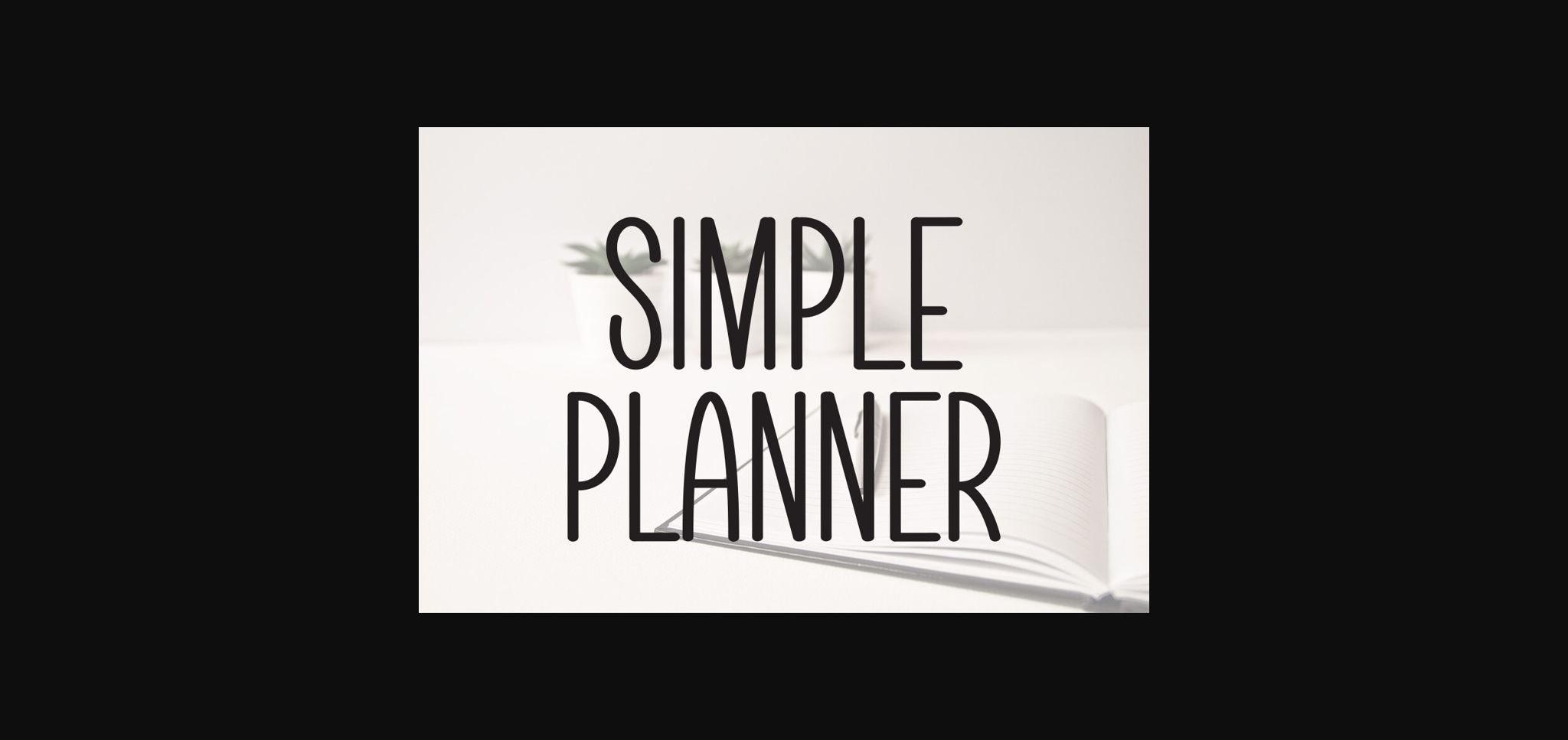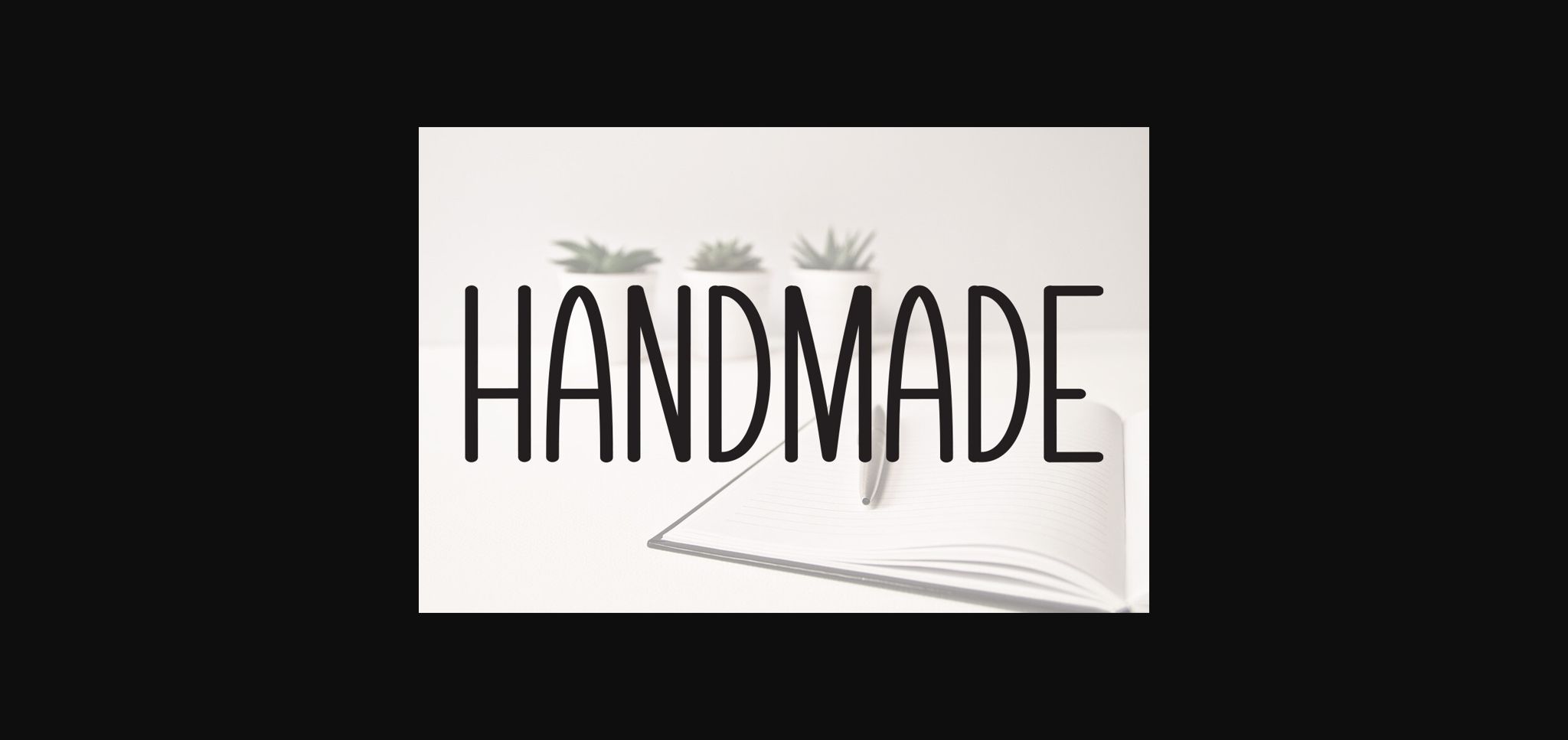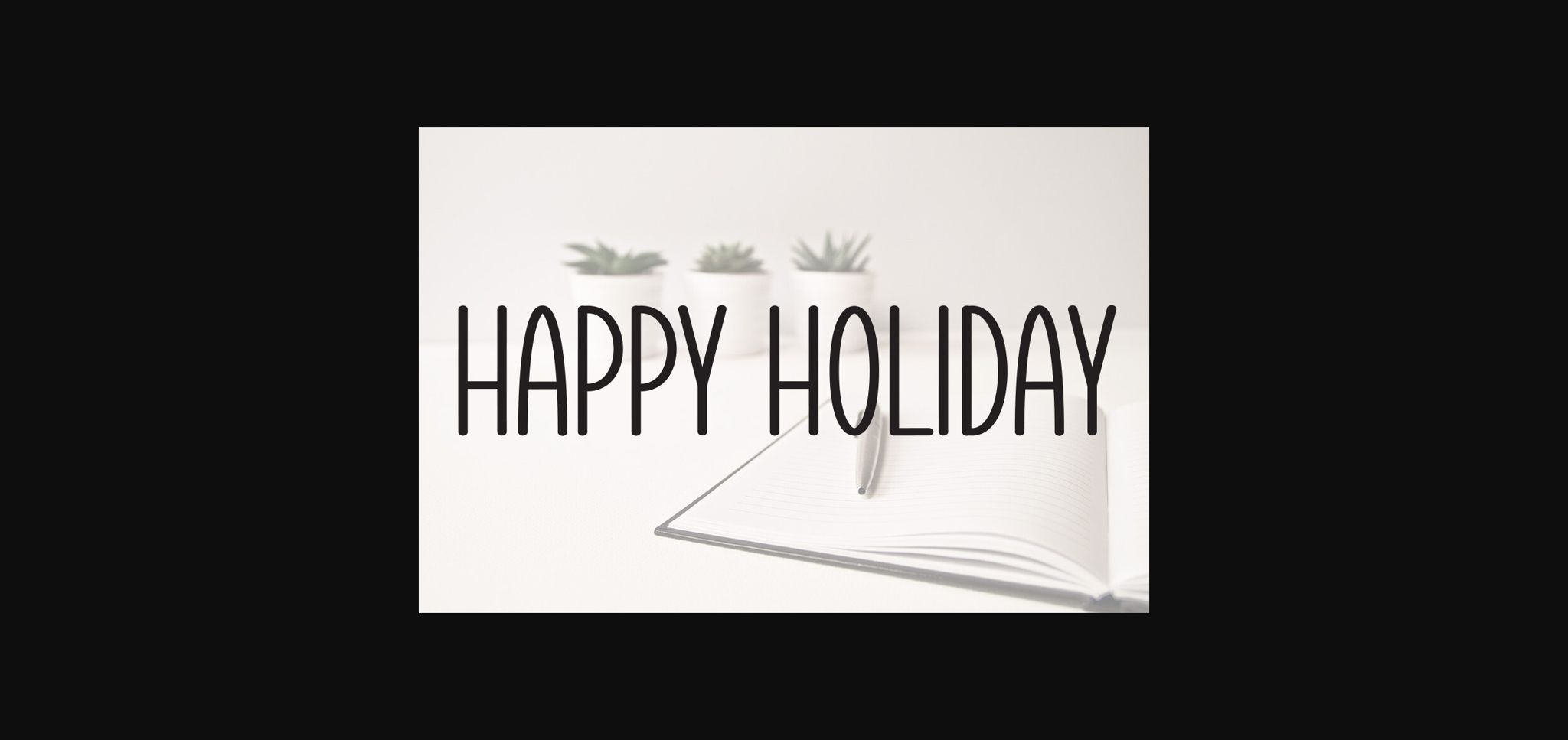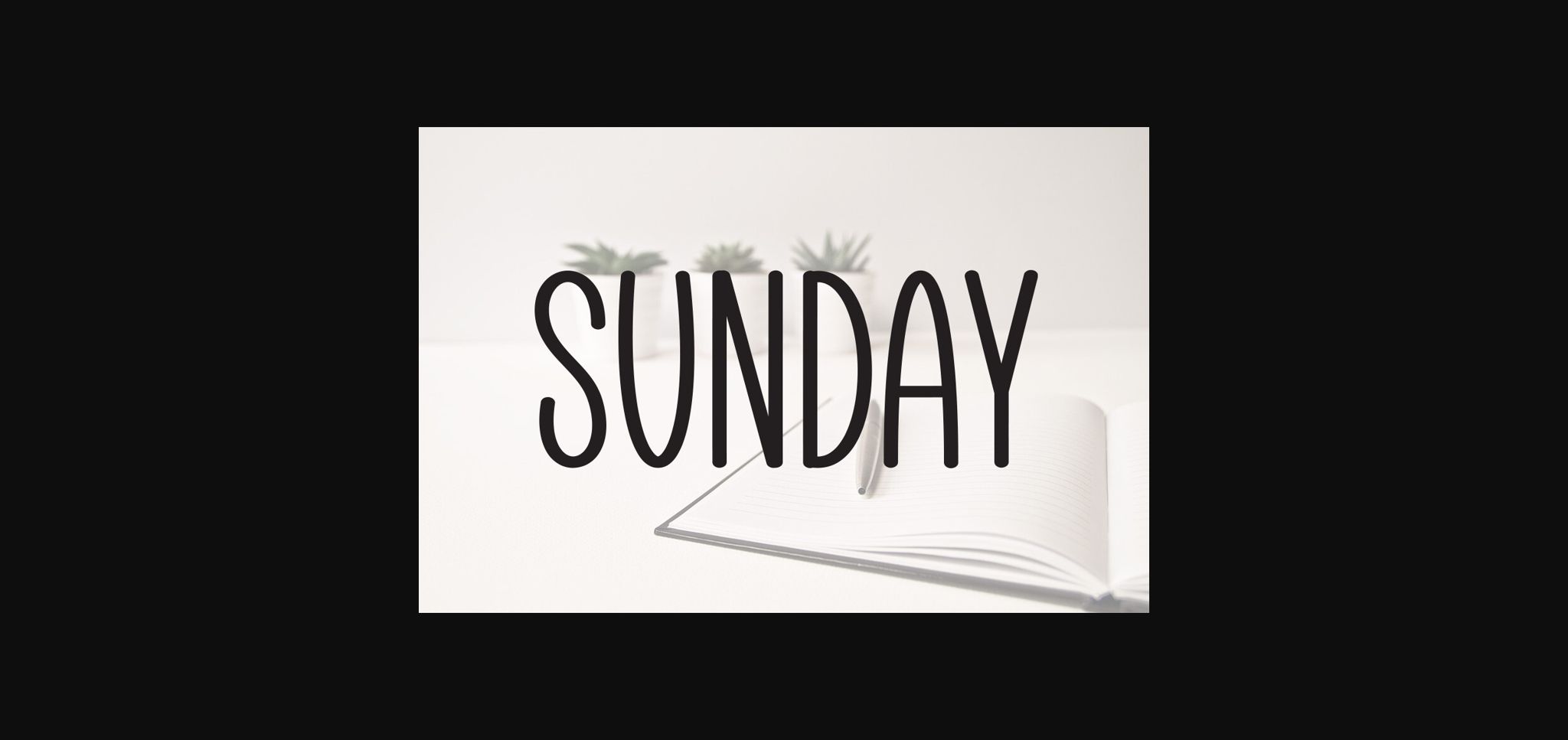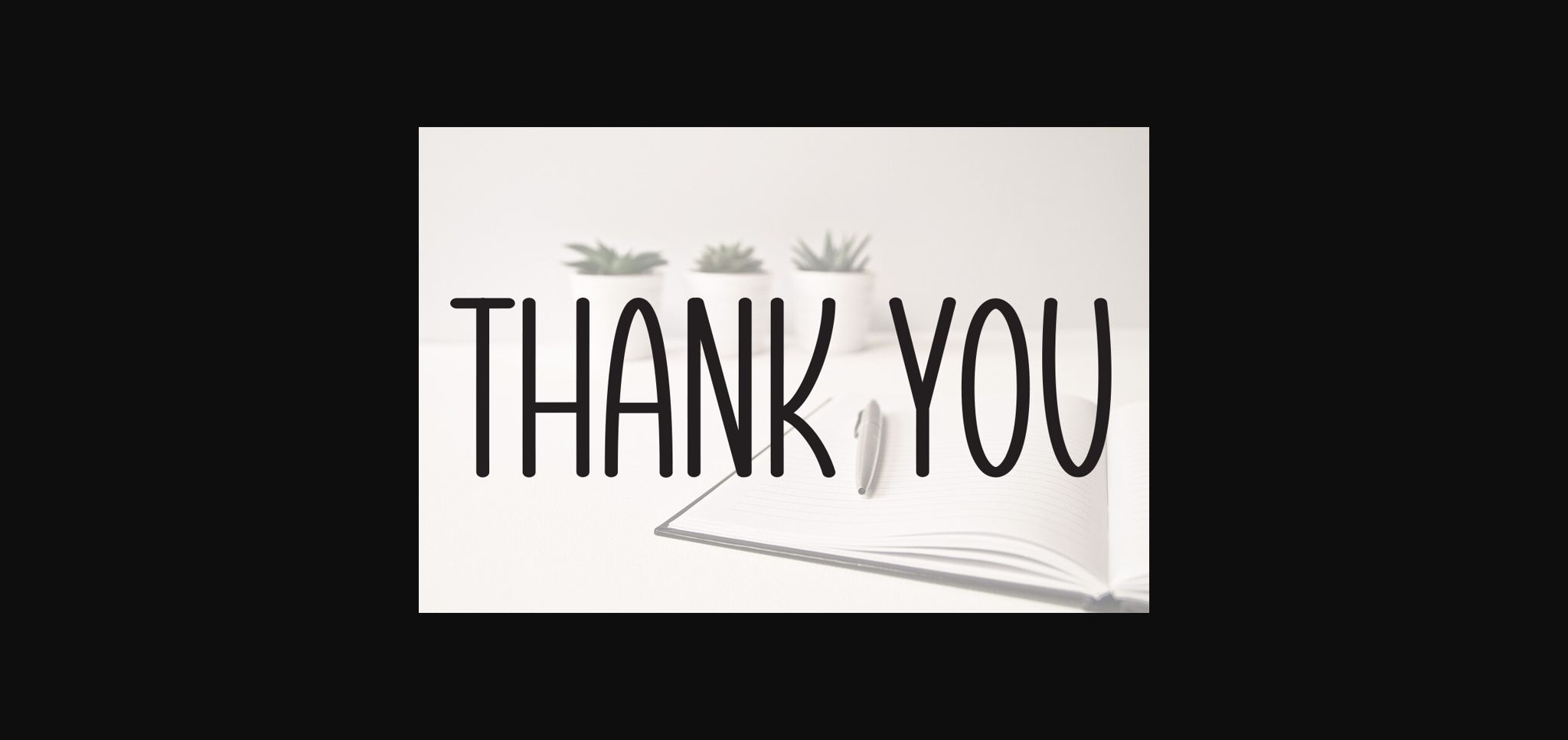
HomeSans Serif FontsSimple Planner Font Sans Serif Fonts Simple Planner Font FacebookXPinterestWhatsApp 1 of 7 ... Simple Planner Font Poster 2... Simple Planner Font Poster 3... Simple Planner Font Poster 4... Simple Planner Font Poster 5... Simple Planner Font Poster 6... Simple Planner Font Poster 7... About Simple Planner Font Simple Planner is a sweet and neat sans-serif font. This gentle font will look gorgeous on a variety of design ideas. It will add a joyful and romantic touch to each of your projects! DOWNLOAD NOW People also explored Camping Homesteader JNL Font Lettering Script Font Kallinda Font Hello Angeline Font Vintage Font Melinda Bladegia Script Font Water Font Taglio 271 0 TagsSimple Planner Font Previous articleSimple Planner FontNext articleSomewhere Someone Font LEAVE A REPLY Cancel reply Comment: Please enter your comment! Name:* Please enter your name here Email:* You have entered an incorrect email address! Please enter your email address here Website: Save my name, email, and website in this browser for the next time I comment. Personal Use Free Sybil Green Personal Use Free Read more about this font White Rose Personal Use Free Read more about this font Heart Personal Use Free Read more about this font Groomer Personal Use Free Read more about this font BLOG Free Fonts Risk: Why Free Fonts Can Be Dangerous for Designers Free Fonts Risk: Why Free Fonts Can Be Dangerous for Designers Using free fonts is a common practice in web and graphic design. However, the... The 10 Best Handwriting Fonts to Add Personality to Your Designs Transform Your Website: Elevate Your Typography with 7 Best Web Font Generators Top 10 Handwritten Fonts That Elevate Your Designs